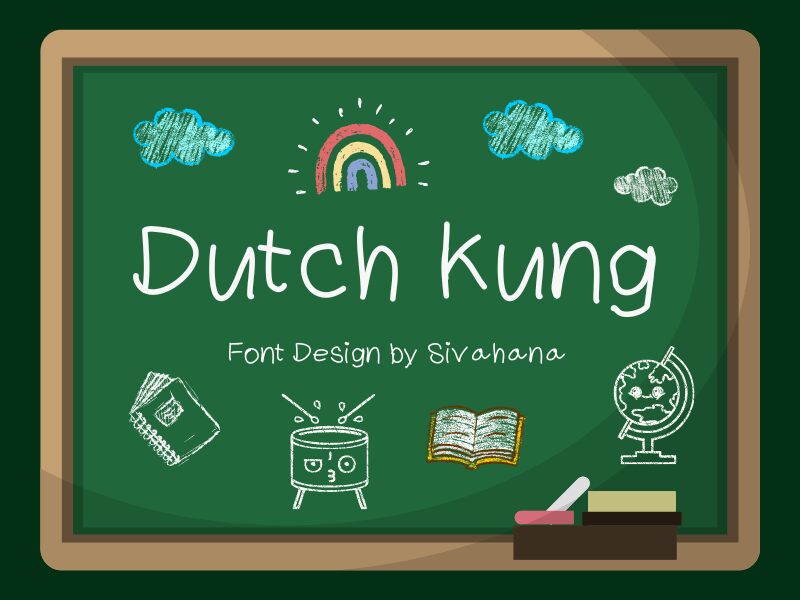
Dutch Kung font is a free handwritten typeface by SddStudio1988. Its casual and informal style offers a whimsical, child-like, and approachable design suitable for a variety of creative projects. The friendly and hand-drawn appearance makes it relaxed, inviting, and warm.
This versatile font seamlessly enhances artwork with a distinctive visual flair, engaging the audience with its playful yet professional touch. This font is a great addition to art and design university projects, children’s magazines, youtube video thumbnails, back-to-school visuals, website UX, mobile and web applications, comics, and other entertainment purposes. Dutch Kung can succeed in a future project in more ways than expected!